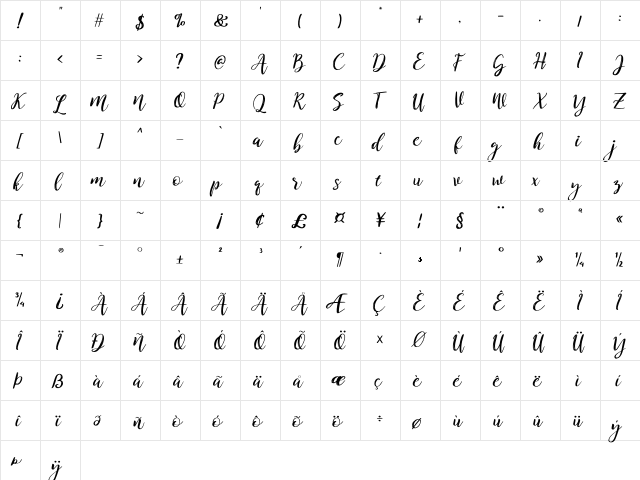
Kitahara Brush Script demo vers Regular
| Foundry | Balibilly Design |
| Designer | Balibilly Design |
Design Context for Kitahara Brush Script demo vers Typeface
Kitahara Brush Script demo vers brings a calligraphic fluidity to the page — its connecting strokes and expressive curves give it an unmistakably human quality.